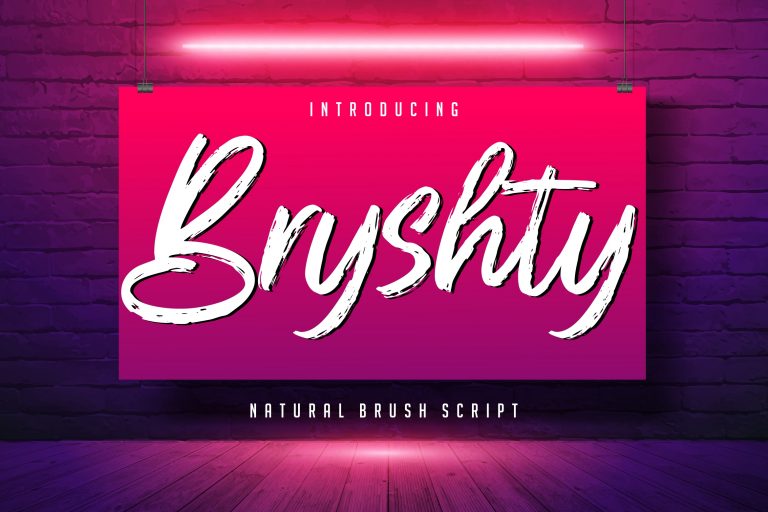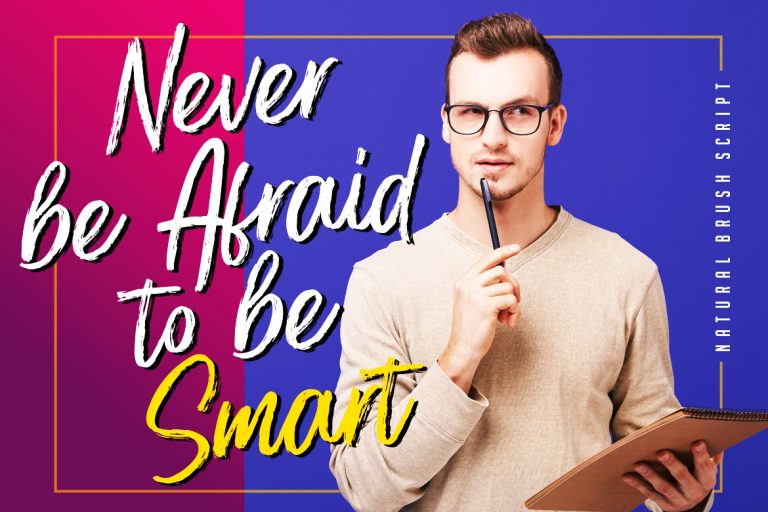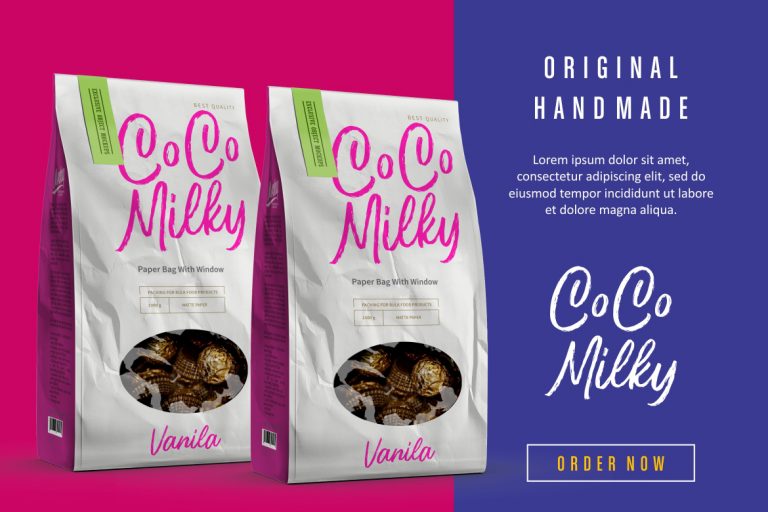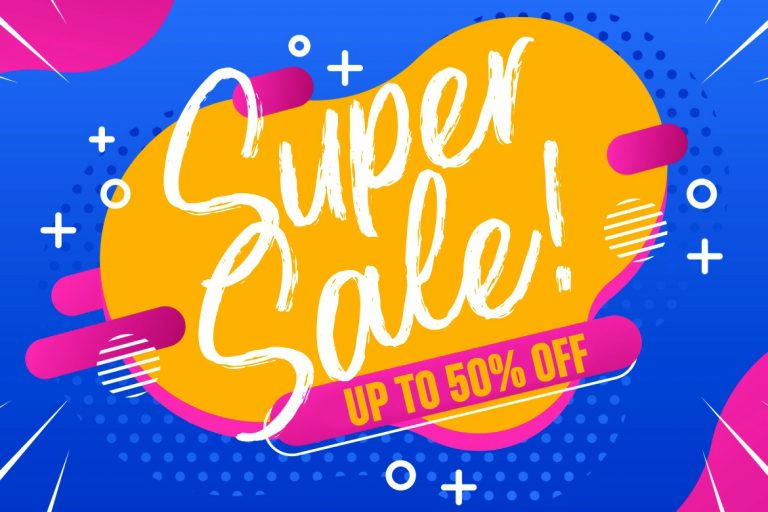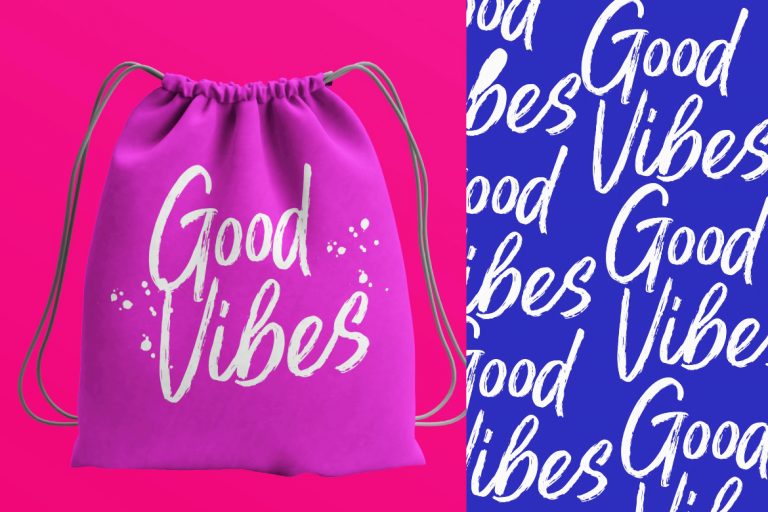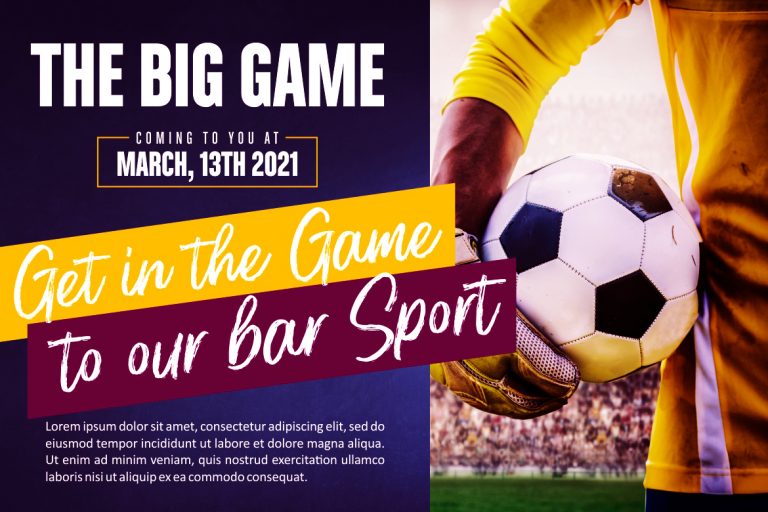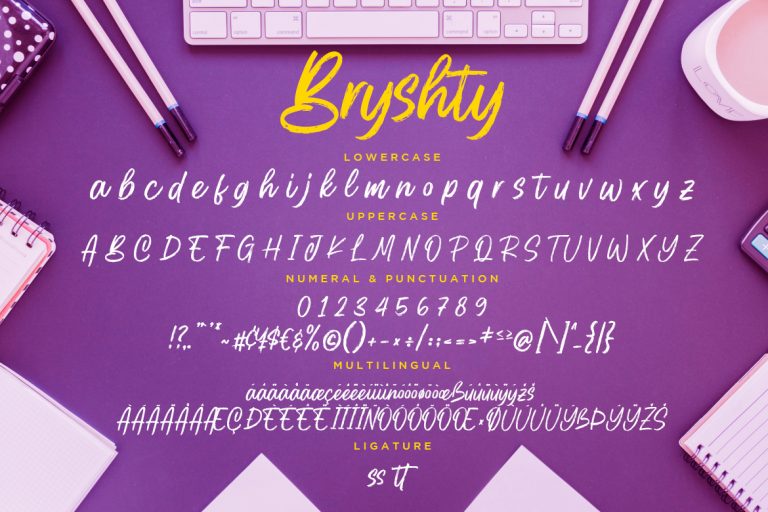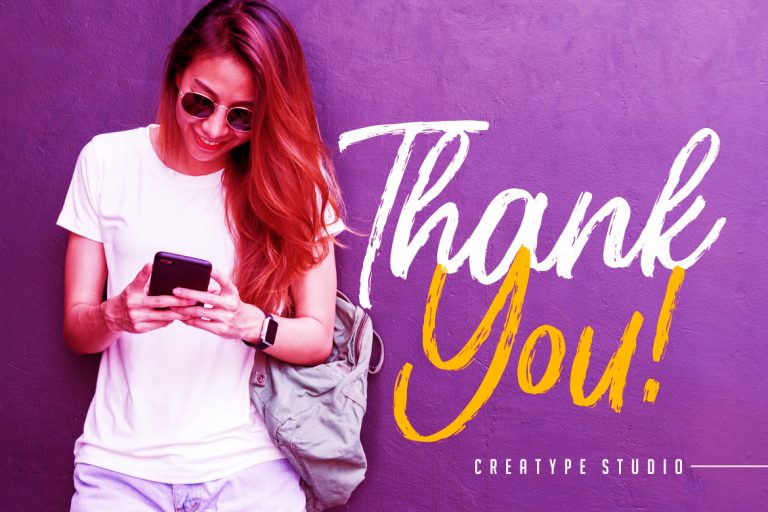
Bryshty is natural brush font with smooth movement.
Bryshty is perfect for branding projects, logo, wedding designs, social media posts, advertisements, product packaging, product designs, label, photography, watermark, invitation, stationery and any projects that need handwriting taste.
• Fonts include multilingual support for; ä ö ü Ä Ö Ü ß ¿ ¡
Bryshty Natural Brush Script